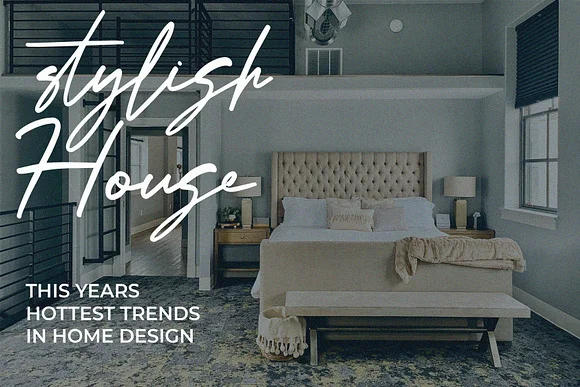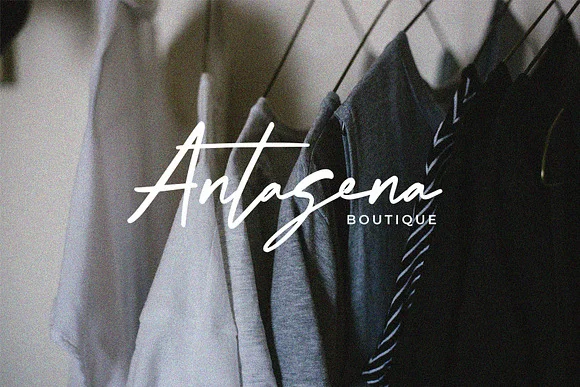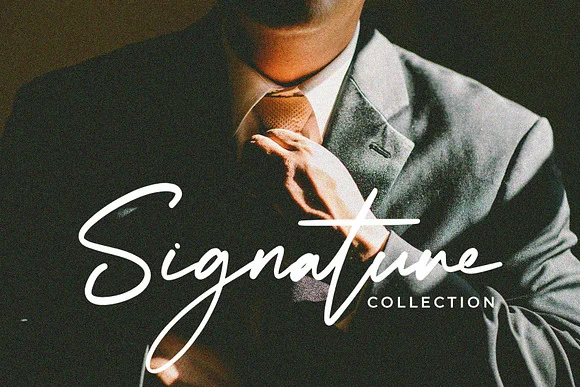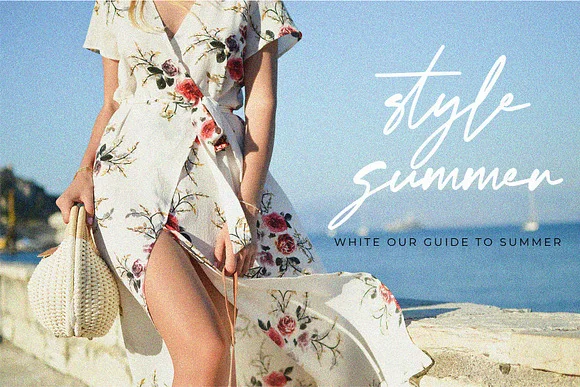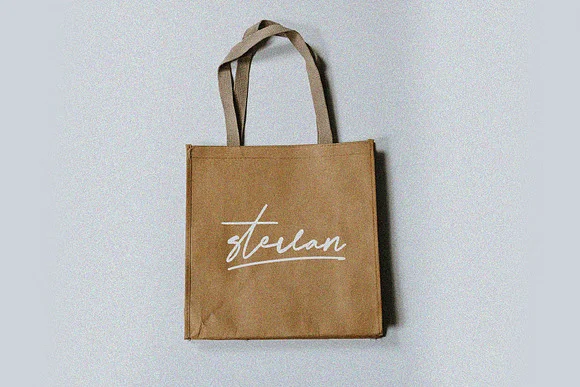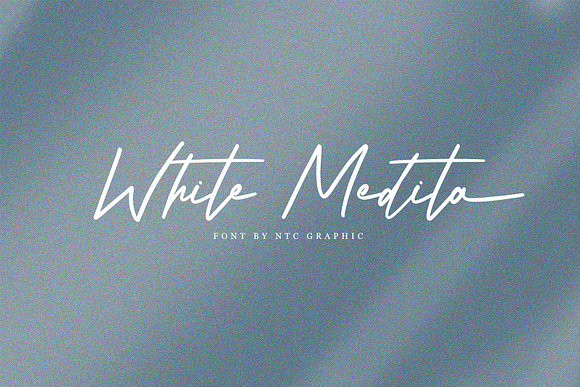
White Medita Brush Script Font
The White Medita Brush Script Font excels in serene design applications including wellness brand identities, meditation center logos, peaceful product packaging, mindful wedding invitations, spiritual business cards, zen artistic portfolios, calming greeting cards, tranquil social media graphics, yoga studio signage, and mindfulness marketing materials. Its meditative brush style makes it perfect for projects requiring peaceful elegance that communicates tranquility and establishes serene brand positioning with audiences seeking mindful experiences and spiritual sophistication.
What makes the White Medita Brush Script Font genuinely exciting is its exceptional ability to capture zen-like serenity and mindful beauty through peacefully crafted brush strokes. The font features flowing, meditative letterforms with tranquil flourishes and balanced proportions that create a distinctly peaceful appearance. Each character displays remarkable attention to mindful detail with gentle curves, harmonious connections, and centered spacing that give text a calming, hand-painted quality. The font's meditative character and serene rhythm create an atmosphere of inner peace while maintaining elegant sophistication and spiritual authenticity.
The White Medita Brush Script Font family typically includes regular weight with comprehensive character sets, featuring uppercase and lowercase letters, numerals, punctuation, and international glyphs. The typeface often incorporates stylistic alternates, contextual ligatures, and zen-inspired swashes that enhance its signature tranquility. These additional elements provide designers with creative options to customize text appearance and achieve more natural-looking meditative handwriting that reflects the font's peaceful and spiritual character.
This tranquil brush font distinguishes itself through its remarkable balance of serenity and professional elegance. Unlike chaotic or aggressive fonts that lack peaceful energy, White Medita Brush Script Font embraces the power of mindful design to create calming connections with audiences. The font's meditative character makes it essential for wellness brands, spiritual businesses, and mindfulness projects where creating peaceful experiences and promoting inner harmony is fundamental to success in wellness and spiritual markets.
The White Medita Brush Script Font offers designers an exceptional opportunity to incorporate zen-like tranquility into their mindful projects. From meditation apps to wellness retreat brands, this font delivers the peaceful brush aesthetic that resonates with audiences seeking spiritual growth and mindful living. Its serene appeal ensures your designs communicate inner peace while the signature styling adds distinctive personality that reflects meditative excellence and spiritual sophistication in any application requiring tranquil typography solutions.